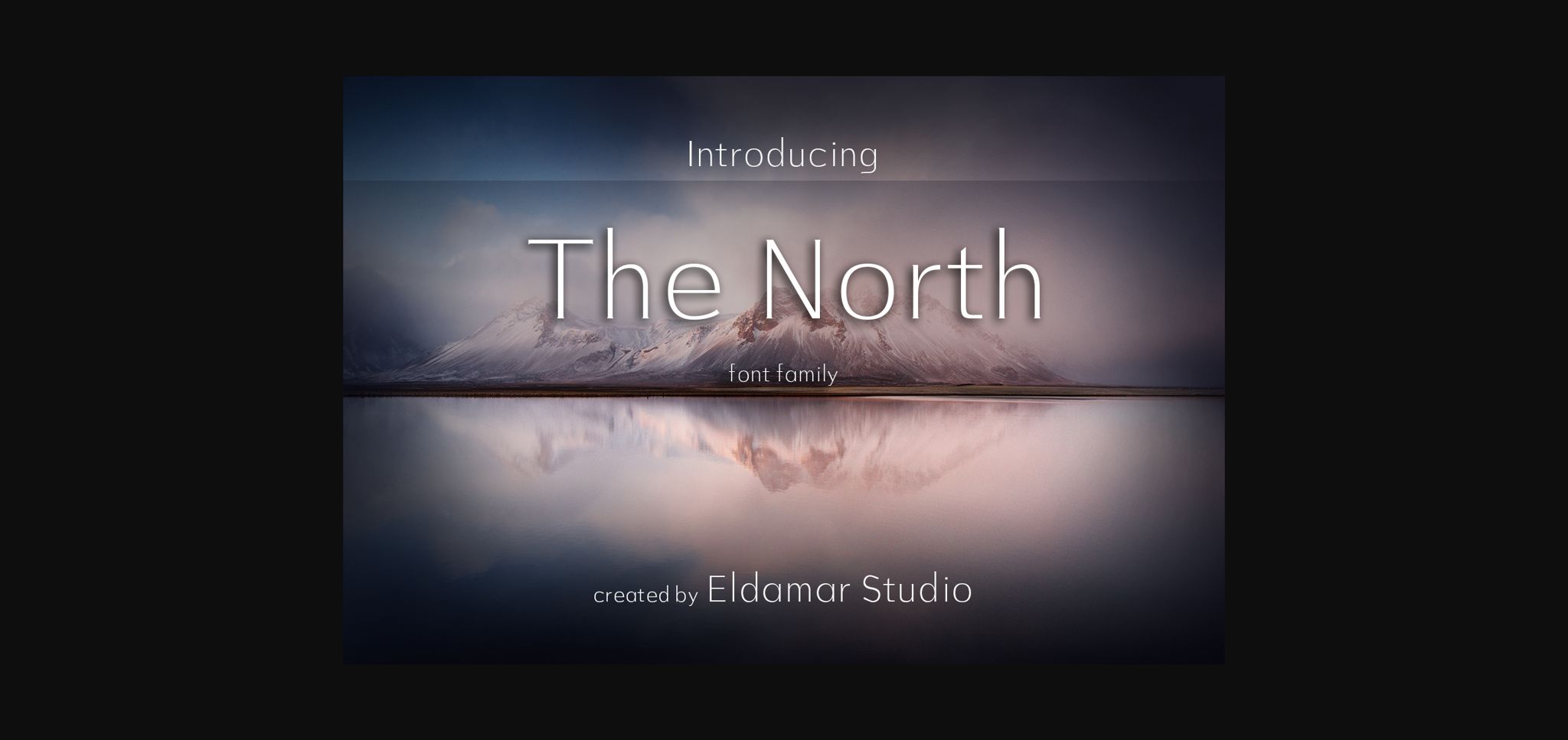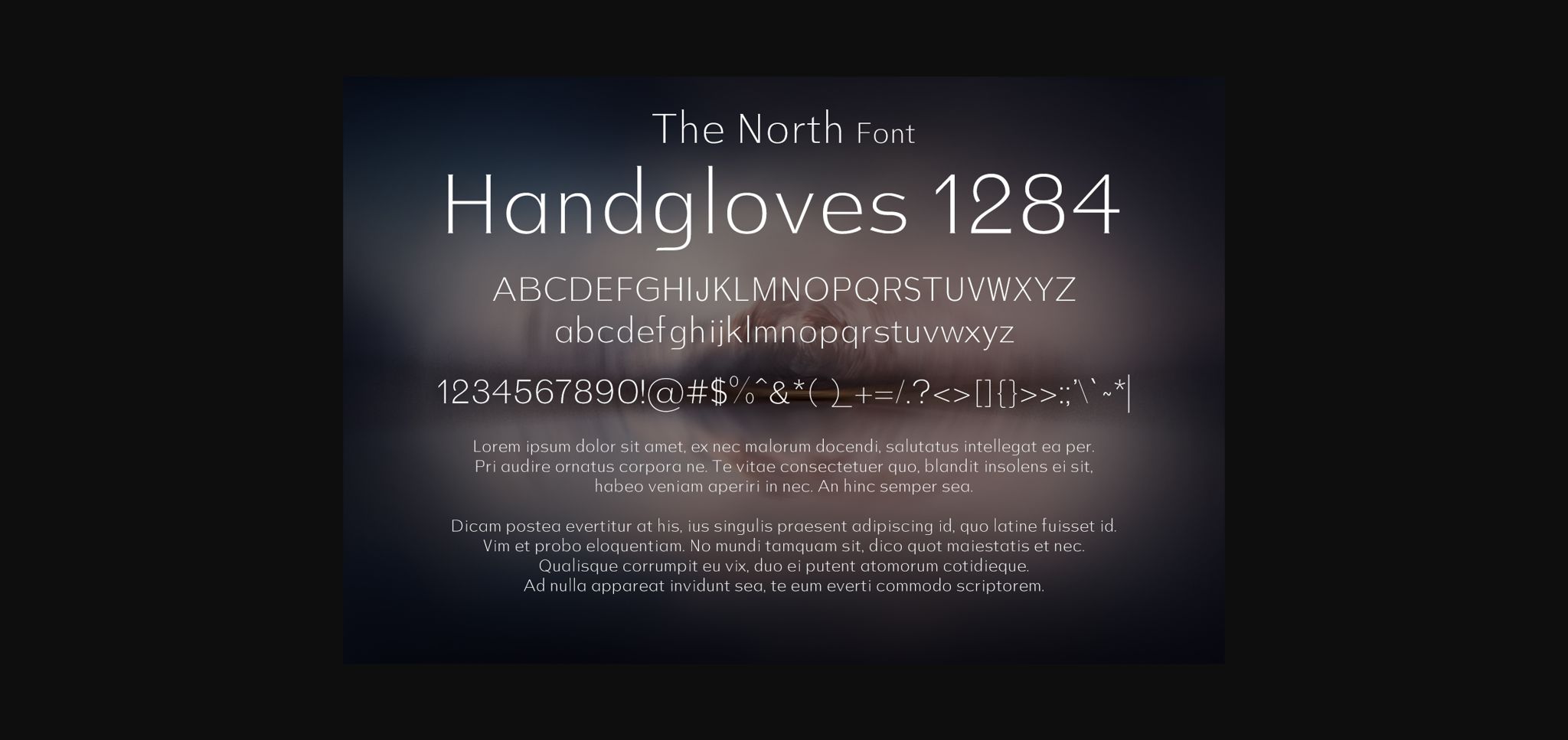
The North Font
About The North Font
The North is a stylish and delicate sans serif font. It has a clean, thin and smooth vibe and it will be a hit for any design that you want to add it to.